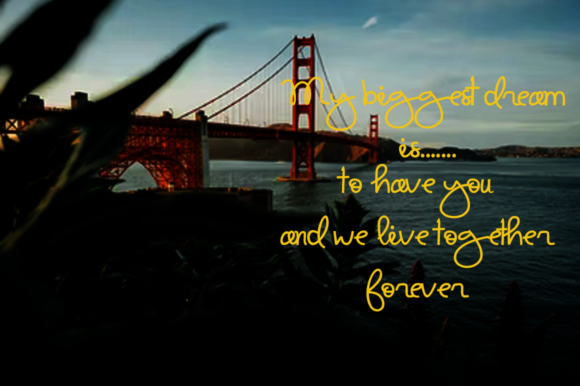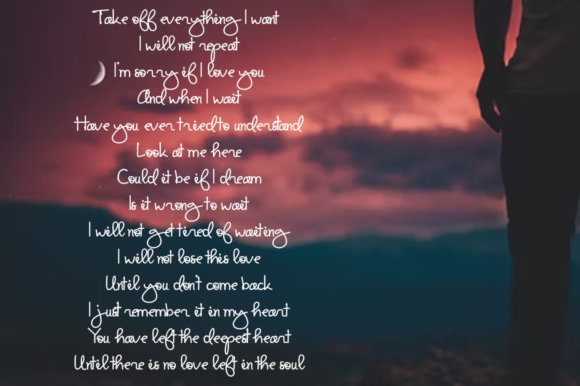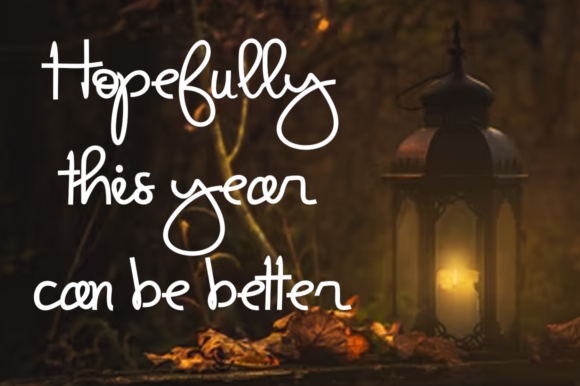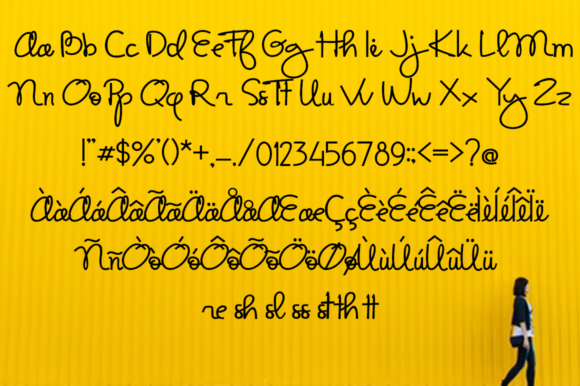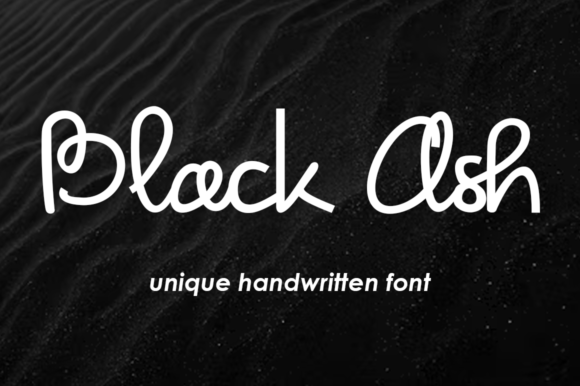
Discover the Elegance of Black Ash Font: Elevate Your Designs with Style
Are you a designer or crafter looking for a font that can add a touch of sophistication and elegance to your creations? Look no further than the Black Ash Font. This stylish and delicate script font is a versatile addition to any font library, capable of elevating any project with its refined charm.
The Characteristics of Black Ash Font
Black Ash Font is a script font that boasts a unique blend of classic and modern elements. Its delicate strokes and fluid connections give it a sense of movement and fluidity, making it perfect for designs that require a touch of elegance. The font’s slender lines and refined features ensure that it remains legible even at smaller sizes, making it suitable for a wide range of applications.
Why Choose Black Ash Font?
So, what makes Black Ash Font an excellent choice for designers and crafters? Here are just a few reasons:
- Versatility: Black Ash Font is suitable for a wide range of projects, from wedding invitations and branding materials to packaging and digital media.
- Elegance: The font’s delicate and refined features add a touch of sophistication to any design, making it perfect for projects that require a high-end feel.
- Legibility: Despite its slender lines, Black Ash Font remains clear and legible even at smaller sizes, ensuring that your message is conveyed effectively.
- Uniqueness: Black Ash Font has a distinctive style that sets it apart from more traditional script fonts, making it an excellent choice for designers looking to add a touch of personality to their work.
Using Black Ash Font in Your Designs
Black Ash Font is incredibly easy to use and can be incorporated into a wide range of designs. Here are a few ideas to get you started:
- Wedding Invitations: Add a touch of romance and elegance to your wedding invitations with Black Ash Font.
- Branding Materials: Use Black Ash Font to create sophisticated business cards, letterheads, and packaging that reflect your brand’s high-end values.
- Digital Media: Incorporate Black Ash Font into your digital designs, such as social media graphics, blog headers, and email newsletters, to add a touch of refinement and style.
- Crafting Projects: Use Black Ash Font to add a personal touch to your crafting projects, such as handmade cards, gift tags, and scrapbooking pages.
Tips for Getting the Most Out of Black Ash Font
To get the most out of Black Ash Font, here are a few tips to keep in mind:
- Pair it with contrasting fonts: Combine Black Ash Font with bold, sans-serif fonts to create a striking contrast that adds visual interest to your design.
- Experiment with colors: Try pairing Black Ash Font with a range of colors, from rich jewel tones to soft pastels, to add depth and personality to your design.
- Play with sizes: Experiment with different font sizes to create visual hierarchy and add emphasis to key elements in your design.
| Font Name | Black Ash Font |
| Author | Gatra Std |
Black Ash Font is a stylish and delicate script font that has the potential to elevate any design. Its versatility, elegance, and legibility make it an excellent addition to any font library, and its unique style ensures that it will add a touch of personality to your work. Whether you’re a designer or crafter, Black Ash Font is an excellent choice for anyone looking to add a touch of sophistication and refinement to their creations.